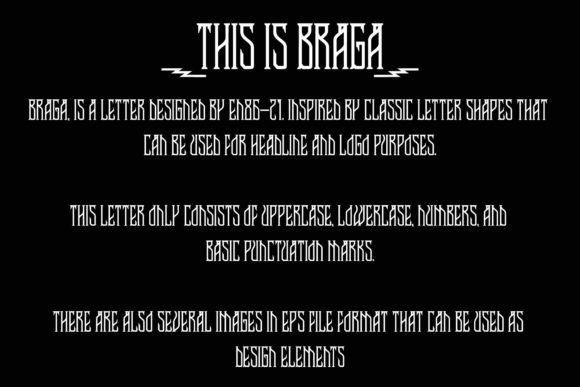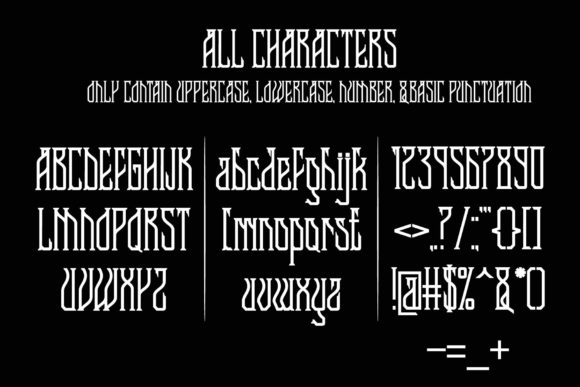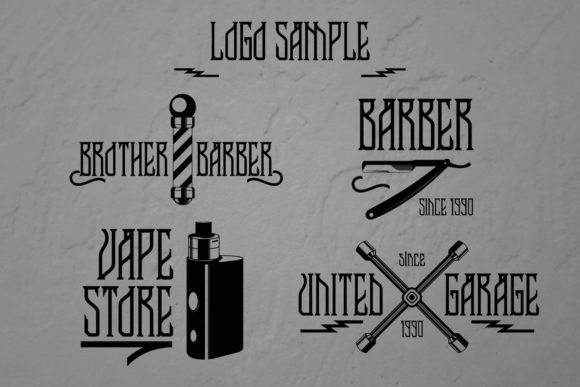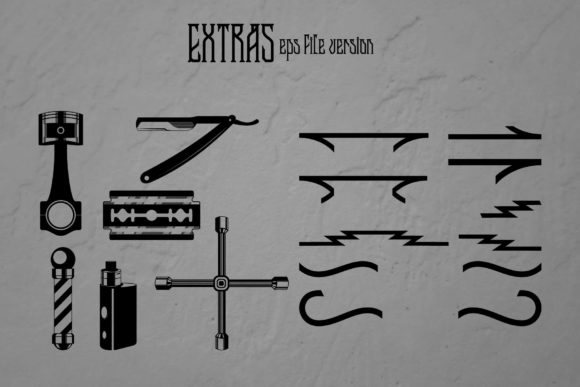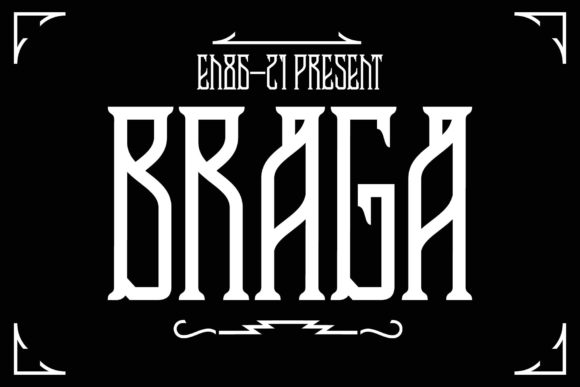
The Bold Statement of Braga Font: Elevate Your Designs with Classic Flair
I’ll never forget the design project that led me to discover Braga Font. I was working on a branding campaign for a local business, and I needed a font that would make a statement. Something bold, yet elegant. After hours of scouring font libraries and testing different options, Braga Font caught my eye. Its classic letter shapes and bold appearance instantly elevated my design, and I knew I had found the perfect fit.
An Honest Review of Braga Font
- ✨ **Bold and eye-catching**: Braga Font is perfect for headlines, logos, and any design element that needs to make a statement.
- ✅ **Classic flair**: The font’s inspiration from traditional letter shapes gives it a timeless feel that works well with a variety of design styles.
- 💡 **Versatile**: Braga Font can be used in both digital and print designs, making it a great addition to any design library.
While Braga Font is an excellent choice for many designs, there are a few things to keep in mind:
- 🤔 **Limited use in body text**: Due to its bold appearance, Braga Font may not be the best choice for body text or long blocks of content.
- ⚠️ **Glyph support**: Some users may find that certain glyphs or special characters are not supported or are limited in Braga Font.
The Backstory of Braga Font
Braga Font was inspired by traditional letter shapes and classic typography. The font’s designer aimed to create a bold and elegant font that would be perfect for use in headlines, logos, and other design elements. While the exact design process is unknown, it’s clear that Braga Font was crafted with attention to detail and a passion for typography.
| Font Name | Braga Font |
| Author | EN86-21 |
Q: What is Braga Font?
A: Braga Font is a display font inspired by classic letter shapes, perfect for use in headlines, logos, and other design elements.
Q: What type of designs is Braga Font best suited for?
A: Braga Font is ideal for designs that require a bold and elegant appearance, such as branding campaigns, logos, and headlines.
Q: Is Braga Font suitable for body text?
A: While Braga Font can be used for body text, its bold appearance may make it more suitable for headlines and other design elements.